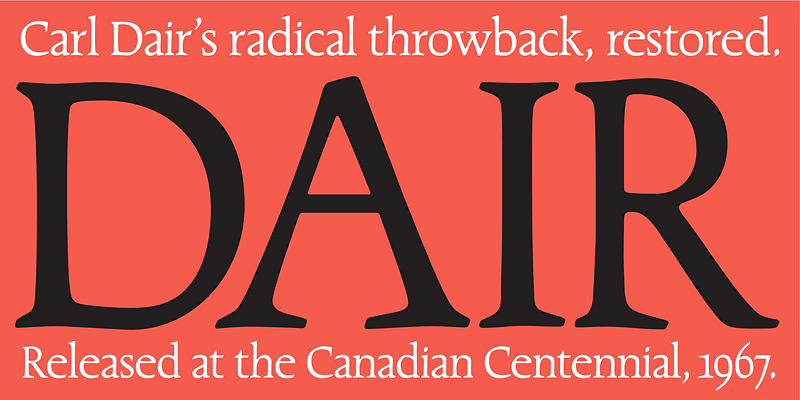
Dair Font Free Download is a refined and elegant serif typeface inspired by traditional editorial typography. With its strong vertical contrast, graceful curves, and sophisticated letterforms, Dair is ideal for book design, magazine layouts, branding, and upscale packaging. It delivers a classic yet contemporary aesthetic that commands attention while maintaining readability.
Crafted to honor the legacy of mid-20th-century typography, Dair offers a timeless feel that works beautifully in both print and digital formats. Its sharp serifs and clean proportions give it authority and poise, making it a perfect choice for projects that need to evoke trust, tradition, and style. Whether used in headlines or body text, Dair brings a sense of structure and finesse to the page.